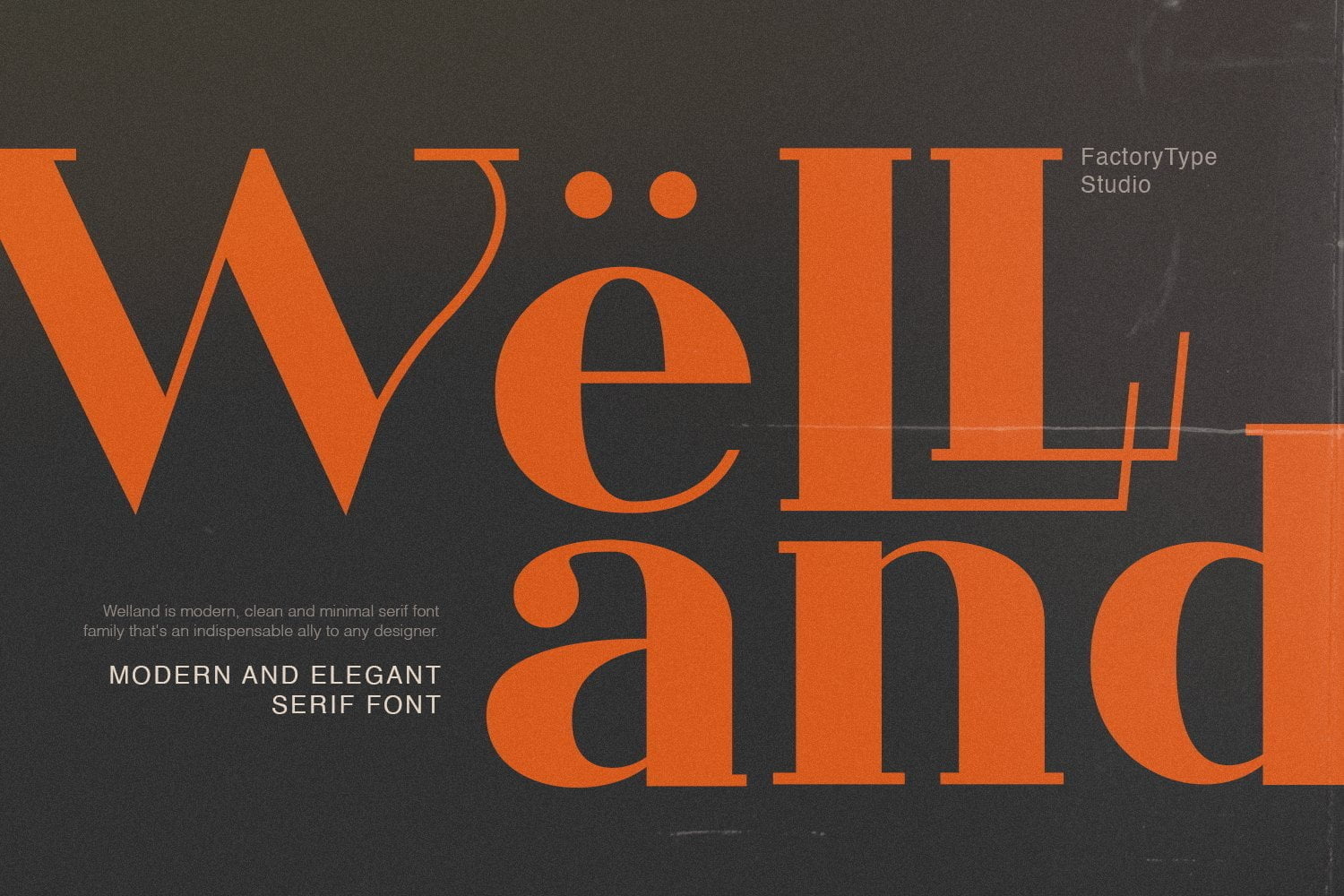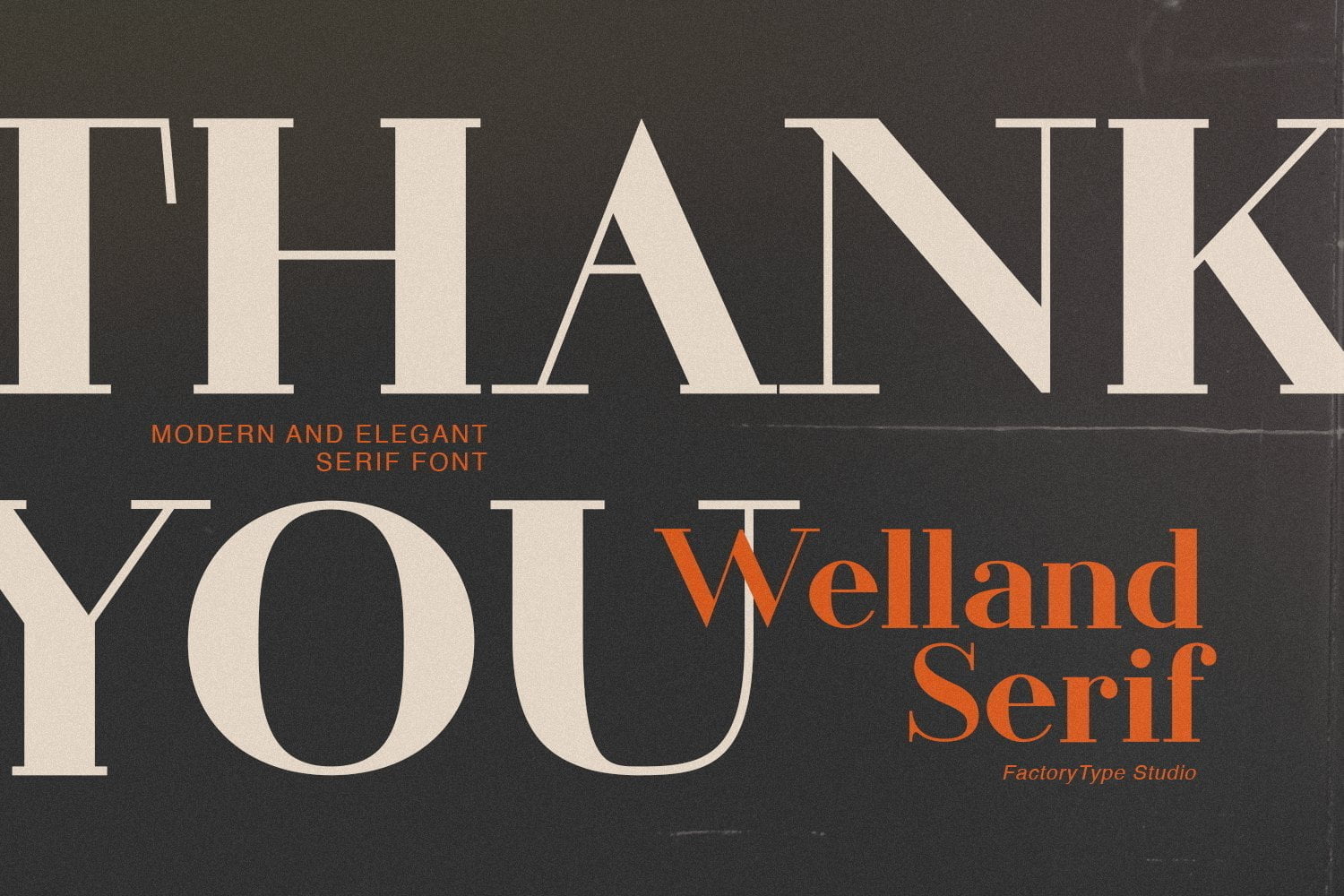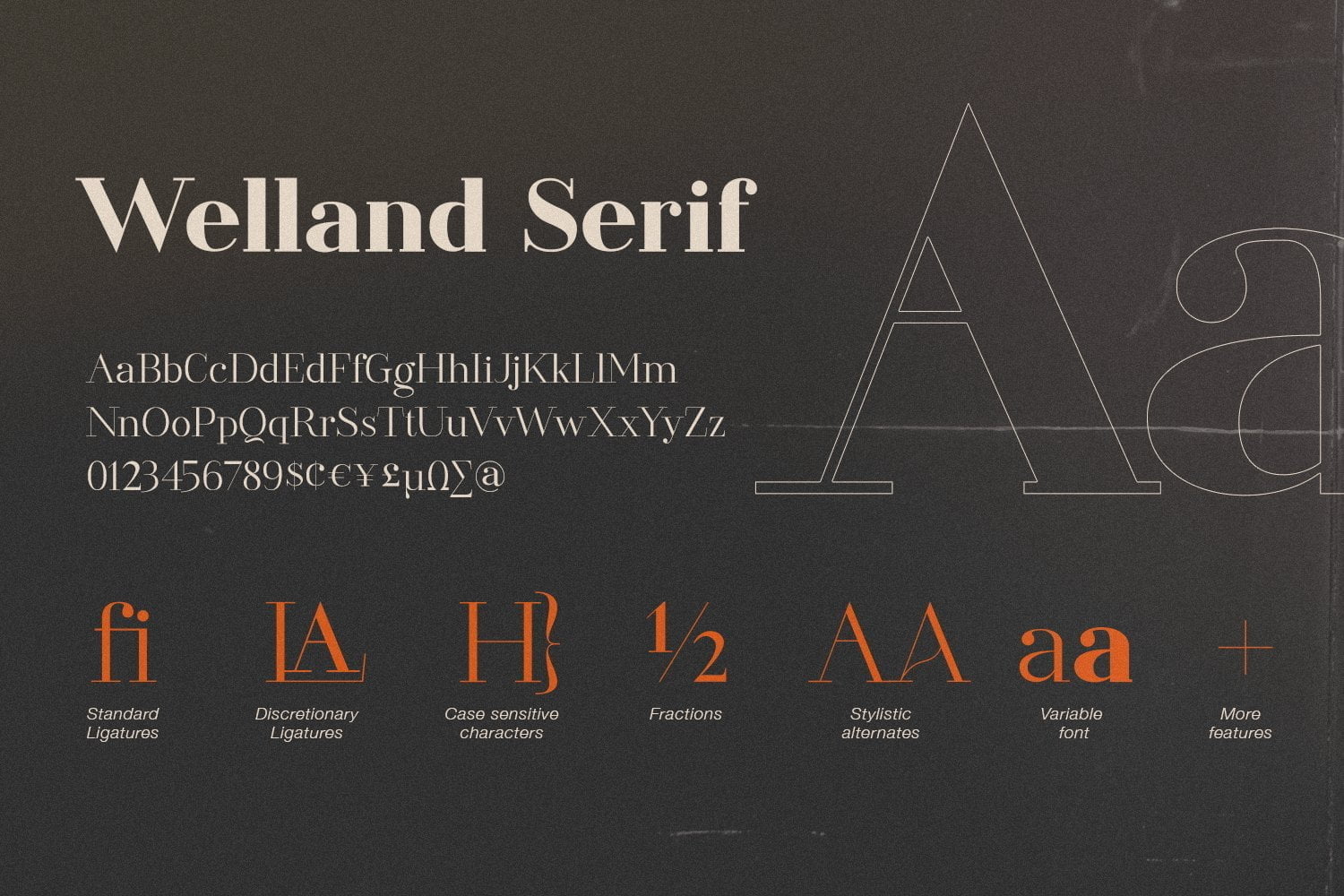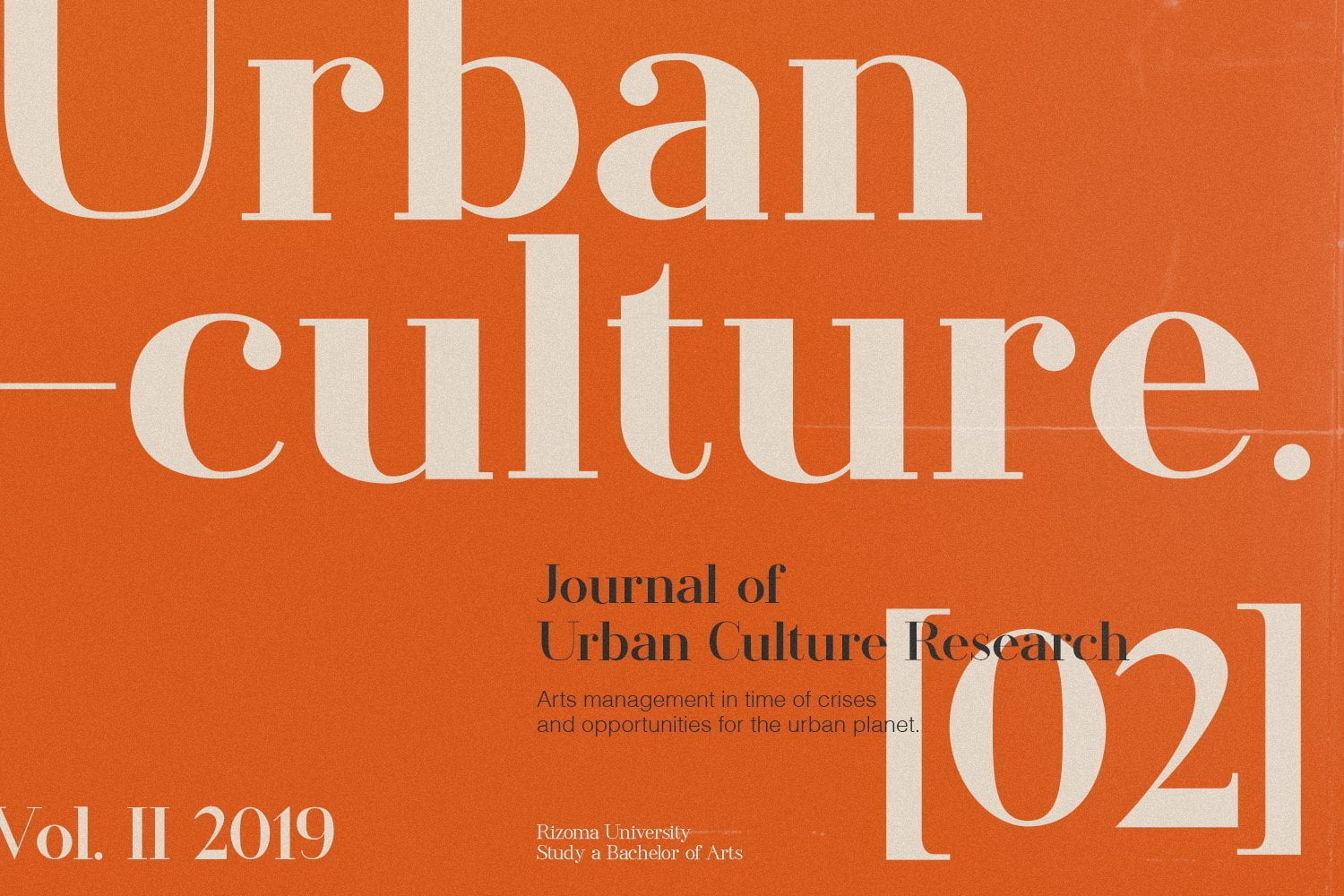
Welland is a modern and elegant serif font family. The combination of modern and vintage elements renders an elegant design. The variety of weights provide a range of choices that will help you find the best typeface colour for your project. Lighter weights are well-suited for body text while heavier ones are ideal for high impact headlines.
- 5 Weights (Light, Regular, Semibold, Bold, Black)
- 2 Styles (Regular and Italic)
- Stylistic Ligatures and Alternate Glyphs